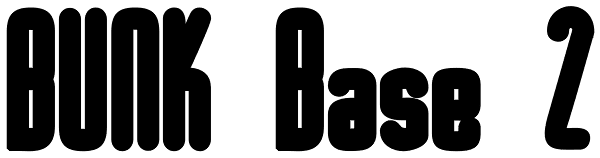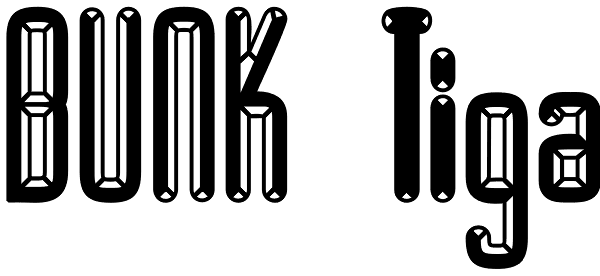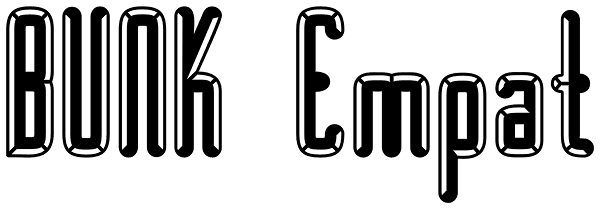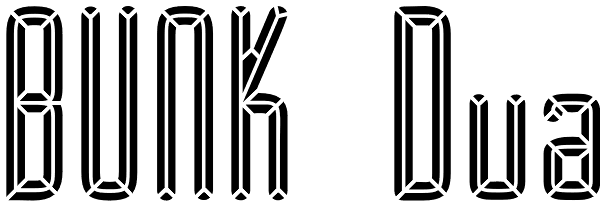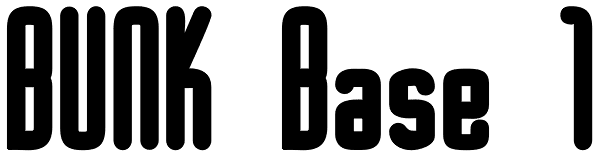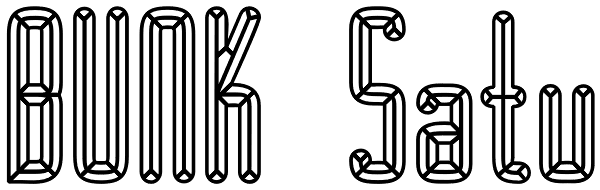
BUNK
BUNK is an 11 font system that can be layered in different ways to create various classic titling effects, think Old Timey signage 'COME IN WE'RE OPEN'. It's a display font that produces the different results by mixing and matching the various fonts...